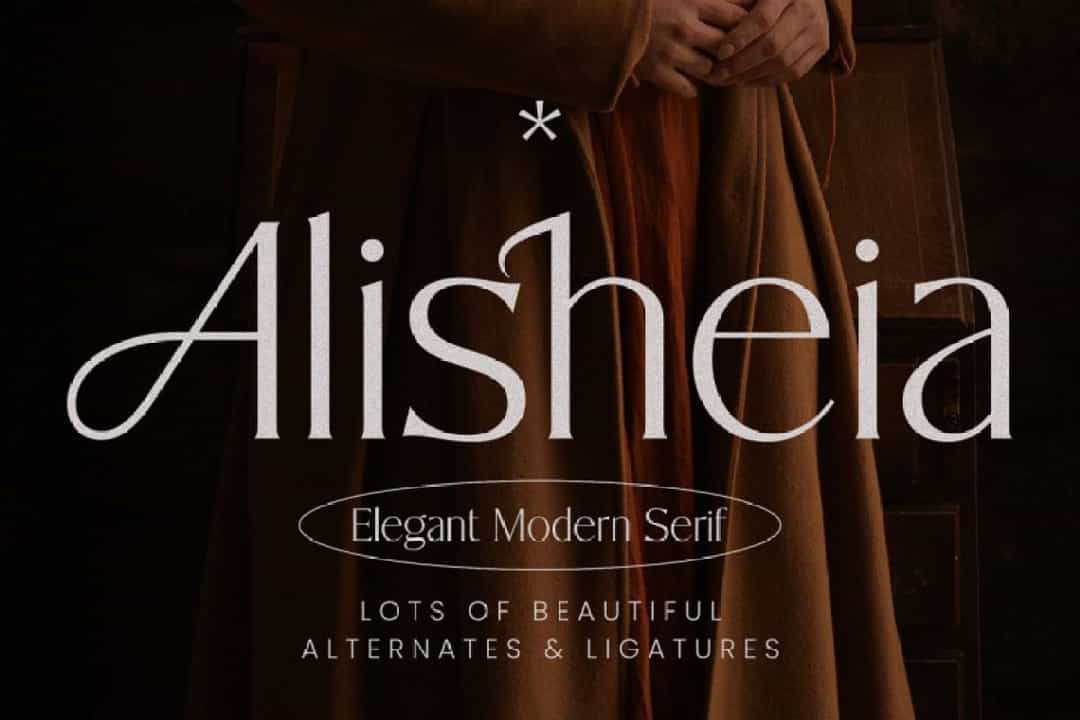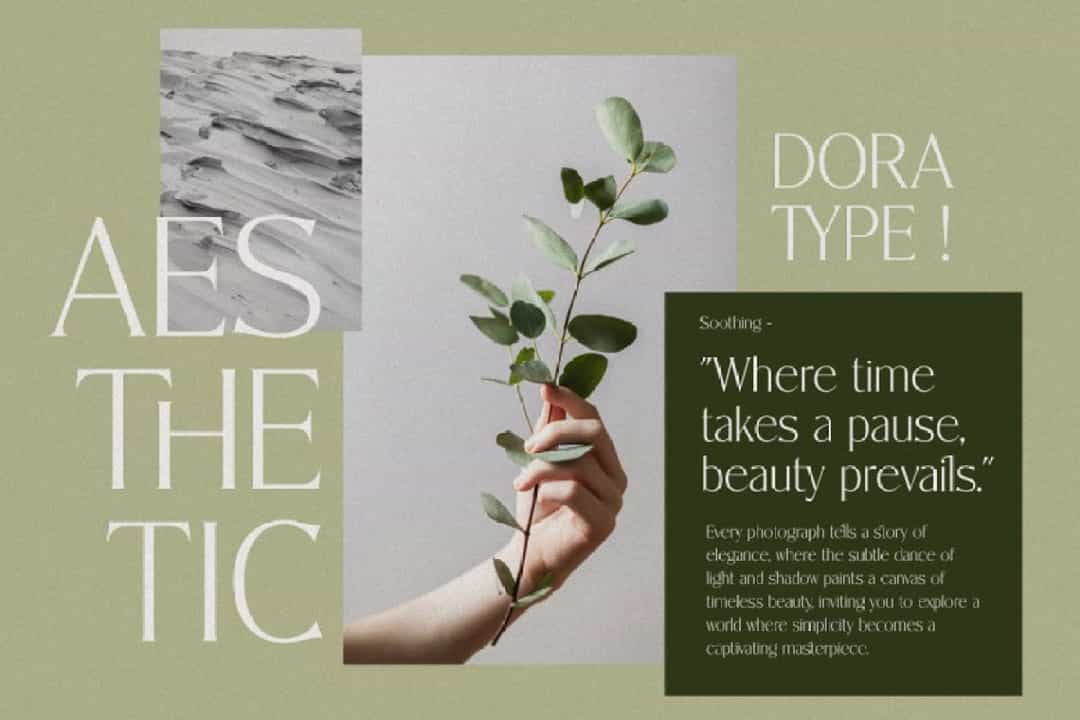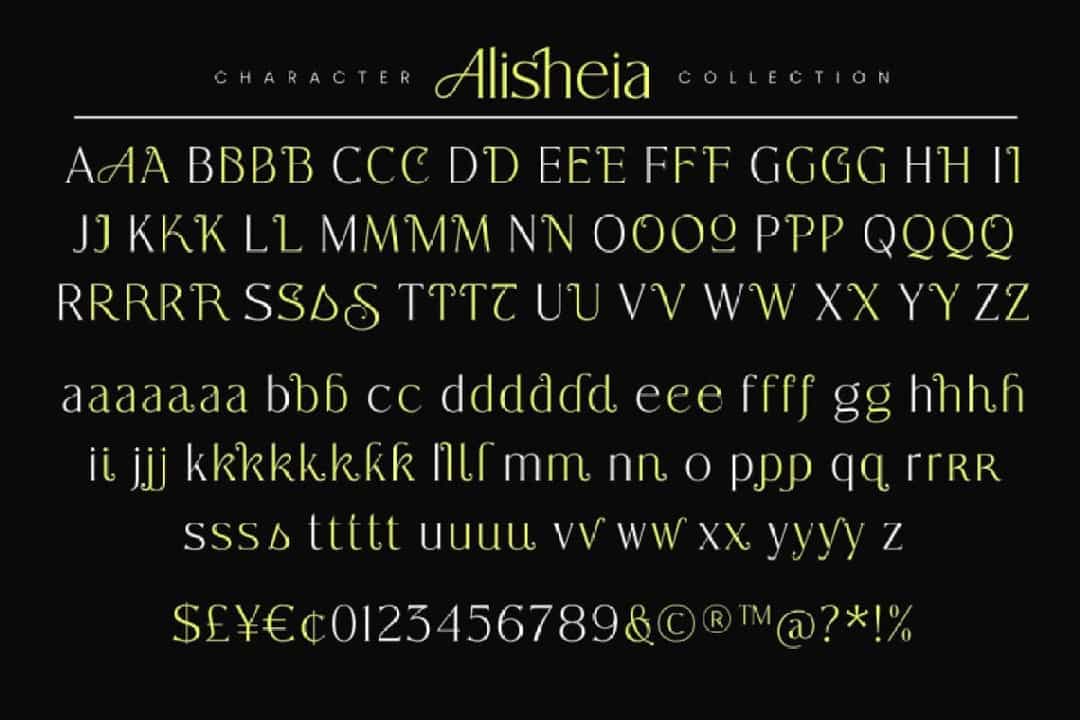
Alisheia is an elegant, contemporary serif font ideal for use with luxurious projects. With its timeless, classic and stylish design, this font could serve as an effective branding tool in invitations, logos and masterheads; not to mention that its variety of options and binders allow for easy creation of original and unique logos or web headers!